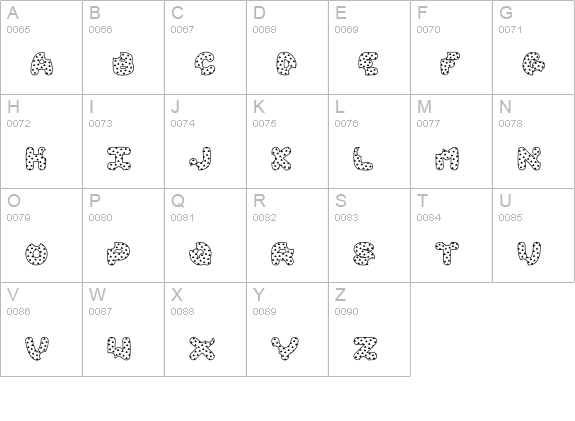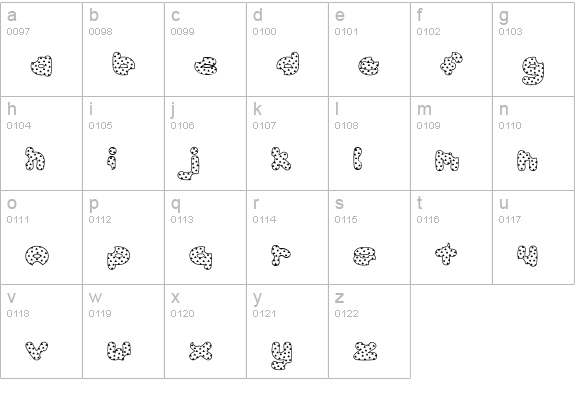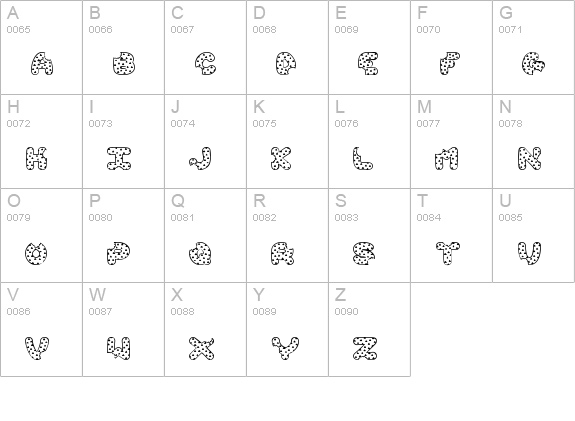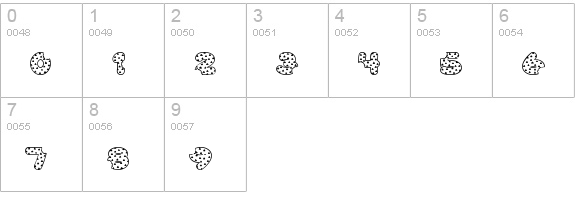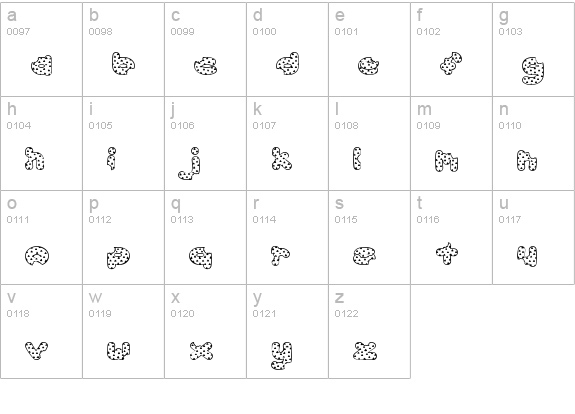
Accent Cookie Dough is a playful and charming font that exudes a sense of whimsy and fun. With its rounded edges and friendly appearance, this font is perfect for adding a touch of sweetness to any project. Whether you're creating invitations, greeting cards, or social media graphics, Accent Cookie Dough is sure to bring a smile to your audience's face. And the best part? Accent Cookie Dough is completely free to download at FontsMarket.com. You can easily access this delightful font and start using it in your designs right away. Don't miss out on the opportunity to add a deliciously unique touch to your creations with the free Accent Cookie Dough font!